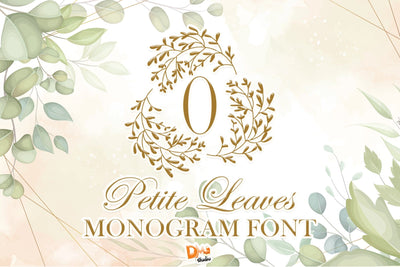
Petite Leaves Monogram
Petite Leaves Monogram – Delicate Botanical Lettering Design
Petite Leaves Monogram is a charming collection of monogram letters adorned with tiny, elegant foliage details. This nature-inspired set blends organic softness with decorative elegance, making it ideal for wedding invitations, logo designs, custom gifts, stationery, wall art, and more. The graceful intertwining of leaves around each letter evokes a gentle, handcrafted touch perfect for botanical-themed projects.
Delicate Leaf Embellishments: Each letter features fine leafy accents for a subtle, natural look.
Perfect for Nature & Wedding Designs: Great for rustic weddings, eco-conscious branding, garden party décor, and personalized gifts.
Decorative Monogram Style: Designed as uppercase initials to stand beautifully on their own or as part of a set.
High-Resolution Detailing: Clean lines and sharp detail optimized for Cricut, Silhouette, laser cutting, and digital applications.
Complete A–Z Alphabet: Includes all uppercase letters as individual decorative monograms.
Versatile Crafting Use: Suitable for vinyl decals, labels, embroidery patterns, home décor, and digital scrapbooking.